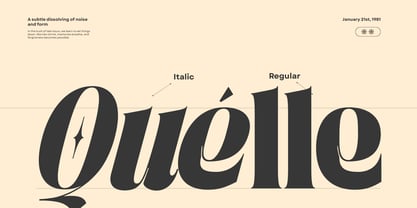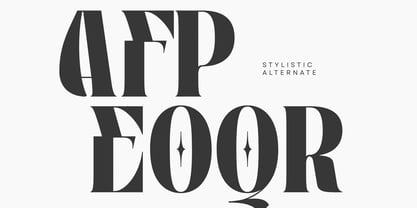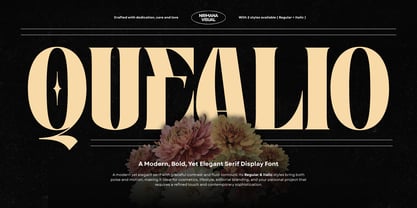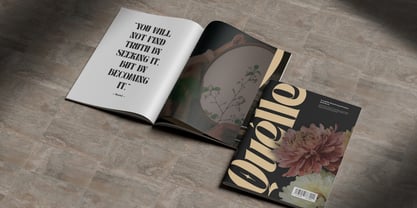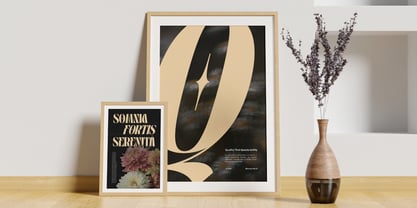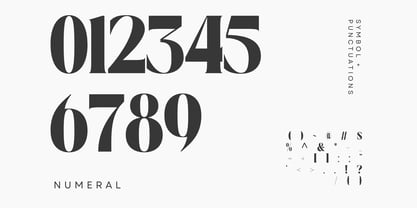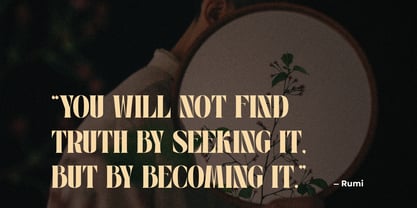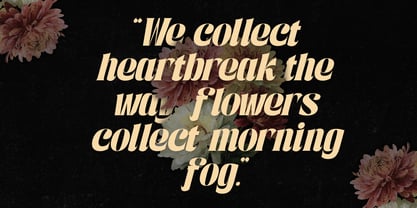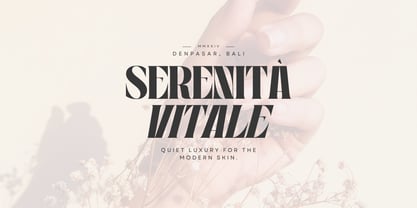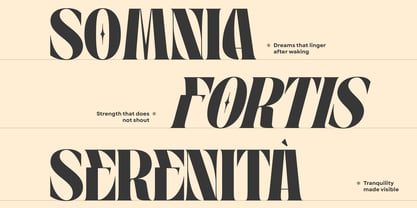
Quealio
La familia tipográfica Quealio fue diseñada por Sigit Dwipa y publicada por Nirmana Visual. Quealio contiene 2 estilos y opciones de paquete familiar. Más información sobre esta familia
Quealio is a refined serif display font that blends modern elegance with timeless vintage charm. Designed with bold contrast, graceful curves, and distinctive letterforms, Quealio delivers a luxurious yet artistic presence. Its uppercase and lowercase characters feel expressive and poetic, making it perfect for branding logos, editorial titles, fashion labels, packaging, cosmetics, lifestyle brands, posters, and premium visual identities. Quealio brings warmth, character, and sophistication to every design, creating a memorable and high-end aesthetic that stands out with confidence and style.